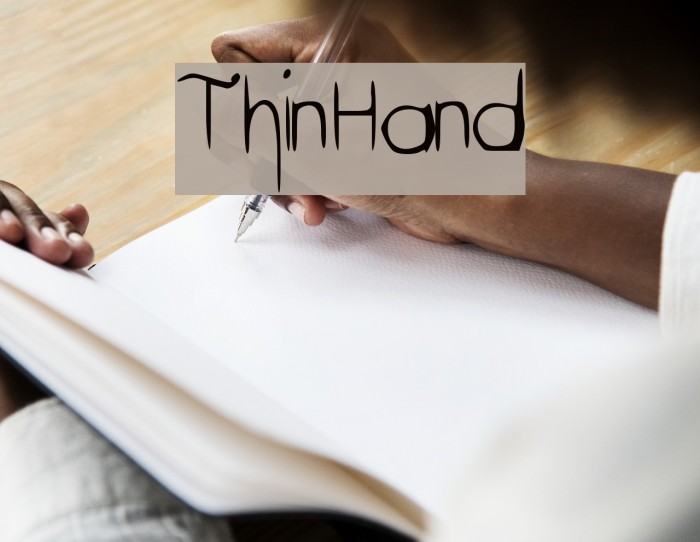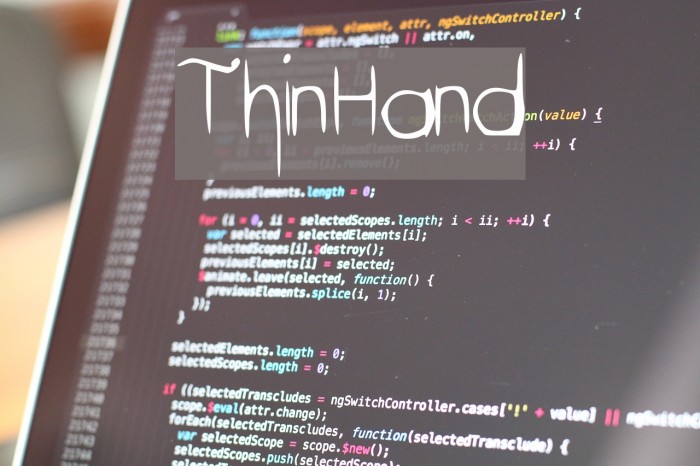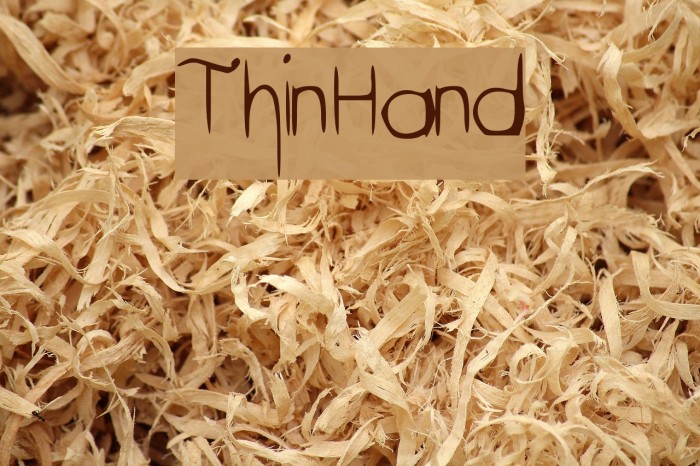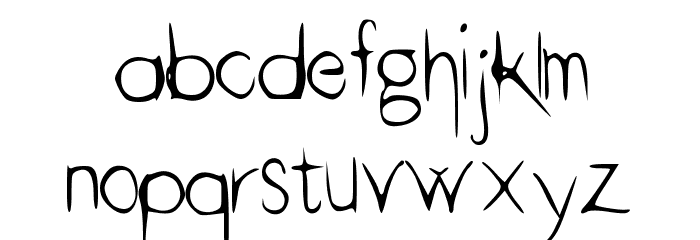
ThinHand Font
ThinHand Description
This font features a unique and whimsical style with elongated and thin strokes that give it a hand-drawn appearance. The characters are slightly irregular, adding a playful and artistic touch. The uppercase letters have a distinct flair with some strokes extending beyond the baseline, while the lowercase letters maintain a consistent height with quirky curves. The numbers and special characters follow the same artistic theme, making the font suitable for creative projects. Its overall design is both modern and artistic, perfect for capturing attention.
Proposed ProjectsIdeal for artistic projects, children's book covers, creative posters, and unique branding.